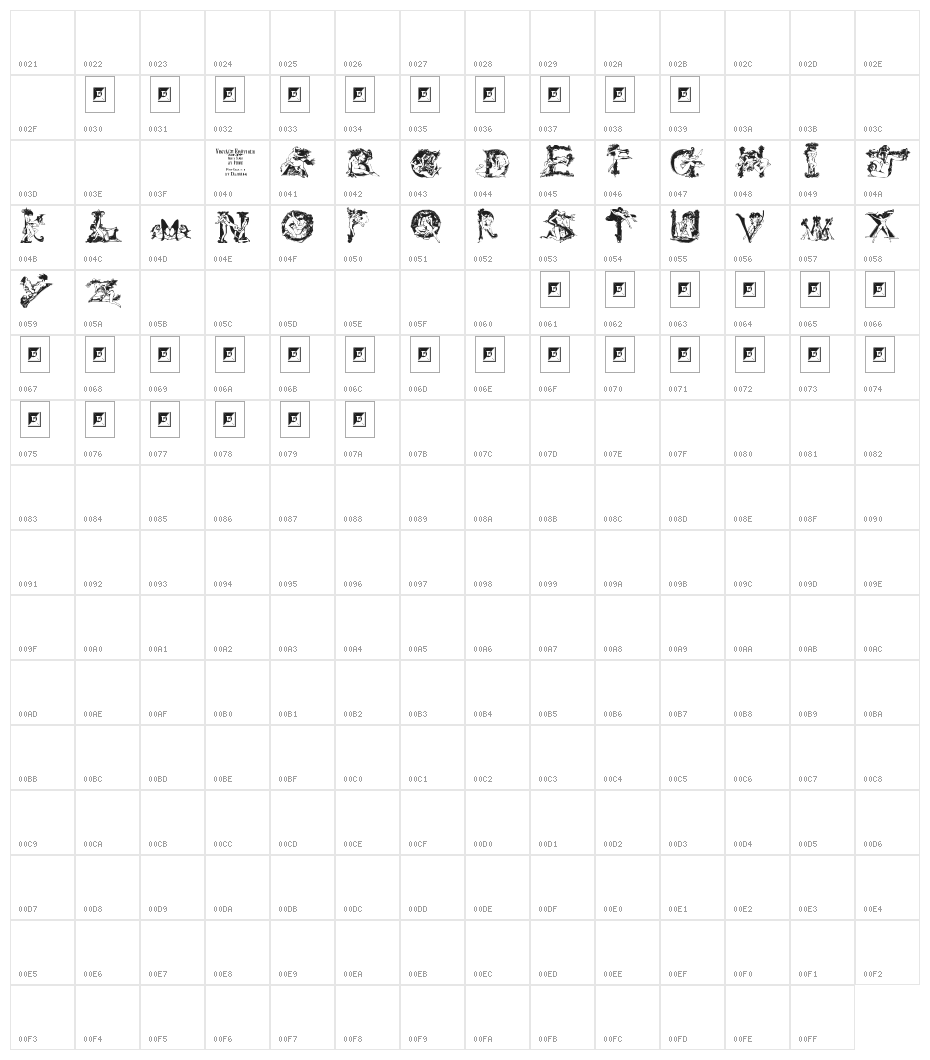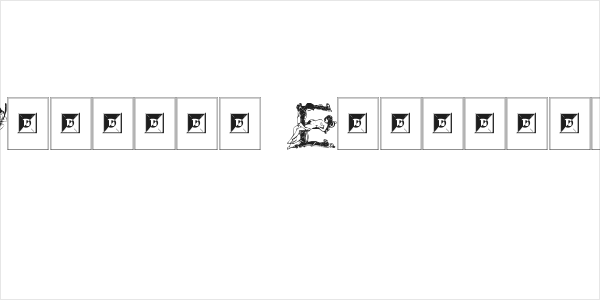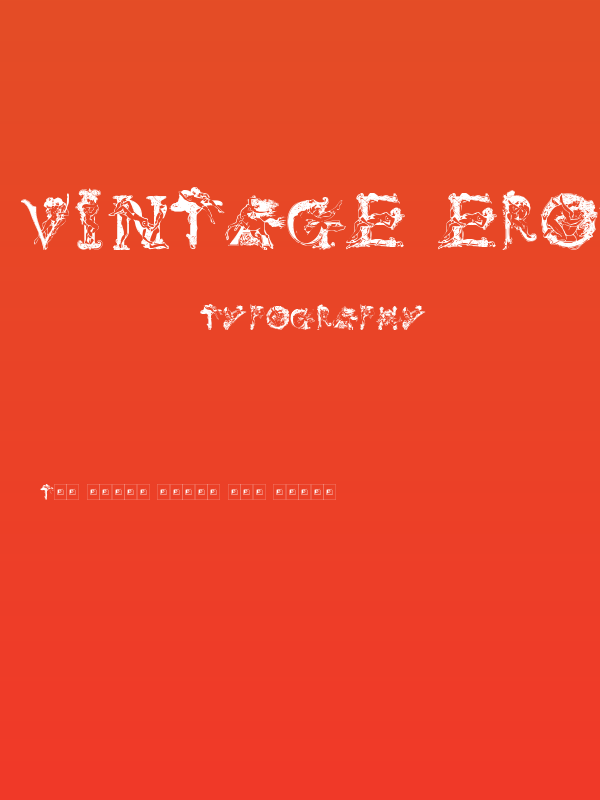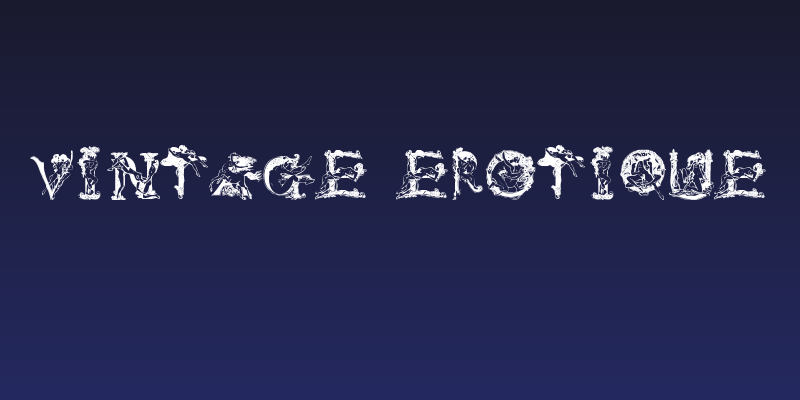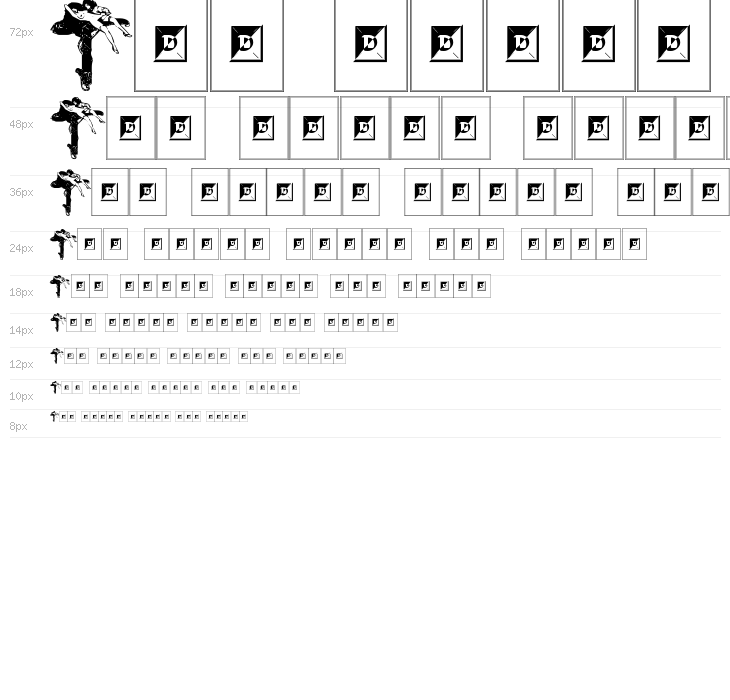
Vintage Erotique Font
Vintage Erotique Description
This font features an intricate and artistic design, with each letter adorned with elaborate, decorative elements. The uppercase letters are particularly ornate, incorporating floral and abstract motifs that give the font a unique, vintage feel. The style is reminiscent of classic art nouveau, with a touch of whimsy and elegance. The font's complexity and detail make it stand out, making it ideal for projects that require a distinctive and artistic touch.
| Use Case | Headlines, Decorative text |
| Proposed Projects | Ideal for artistic posters, vintage-themed invitations, and decorative headlines. |